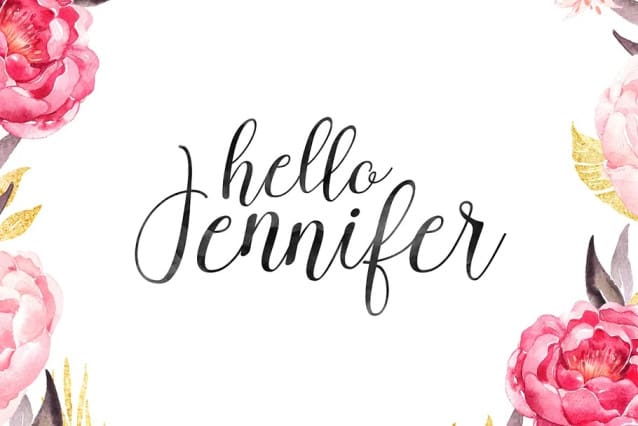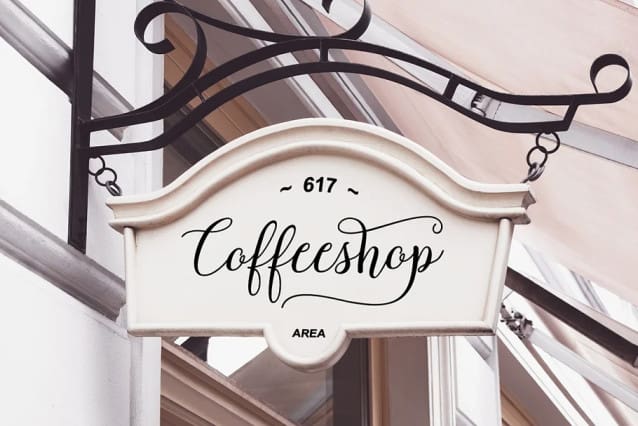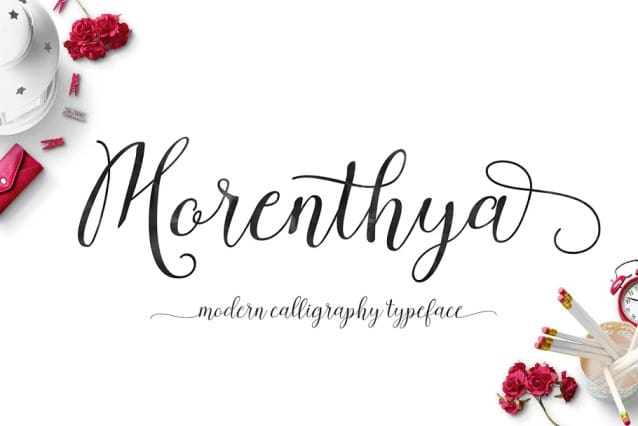
Morenthya Font
Morenthya Font is a modern calligraphy font, with characters dance along the baseline and elegant touch. features 593+ glyphs and 387 alternate characters.Opentype features with stylistic alternates, ligatures and multiple language support. Can be used for various purposes.such as logos, wedding invitation, heading, t-shirt, letterhead, signage, label, news, posters, badges etc. To enable the OpenType Stylistic alternates, you need a program that supports OpenType features such as Adobe Illustrator CS, Adobe Indesign & CorelDraw X6-X7, Microsoft Word 2010 or later versions.